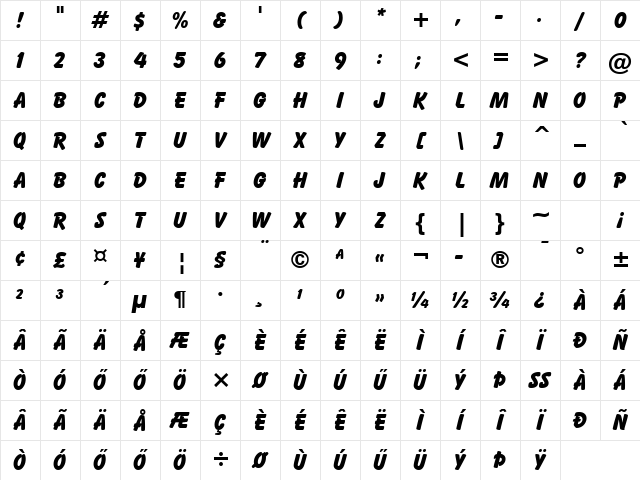
Hu_Balloneb Regular
Design Context for Hu_Balloneb
Hu_Balloneb is a composed and adaptable typeface that performs quietly and consistently across a wide range of design contexts.